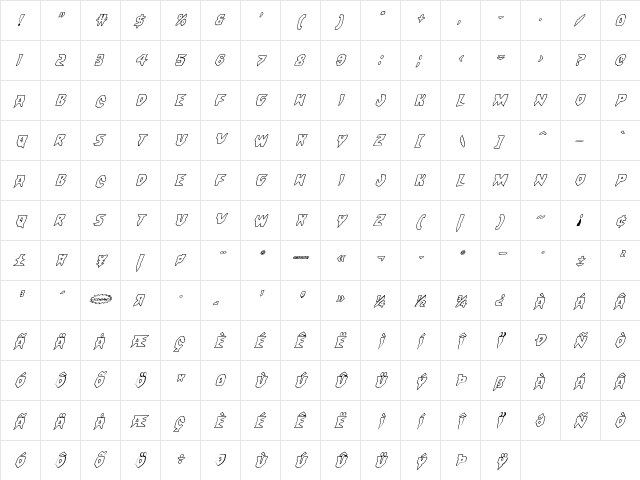
Count Suckula Outline Italic Outline Italic
Design Context for Count Suckula Outline Italic Typeface
Count Suckula Outline Italic is built around its visual character rather than neutral utility — its distinctive forms are designed to make an impression at display sizes. Its italic angle brings a sense of urgency and motion to the letterforms.
Font Pairing: Pair with a clean neutral sans-serif for body copy to let Count Suckula Outline Italic's character lead without overwhelming the composition.
Pro Tip: Treat Count Suckula Outline Italic as the centrepiece of your typographic hierarchy. One strong heading set in a decorative face can carry an entire layout.